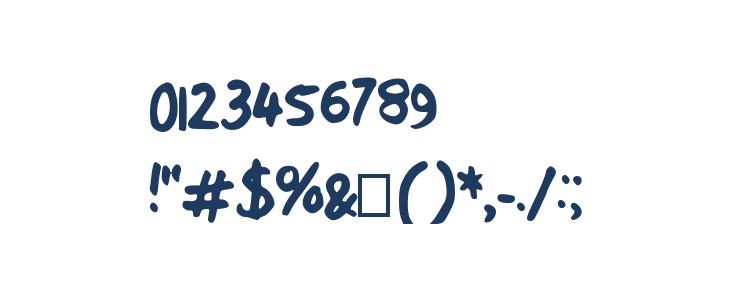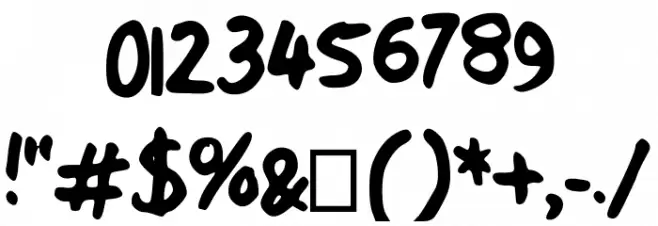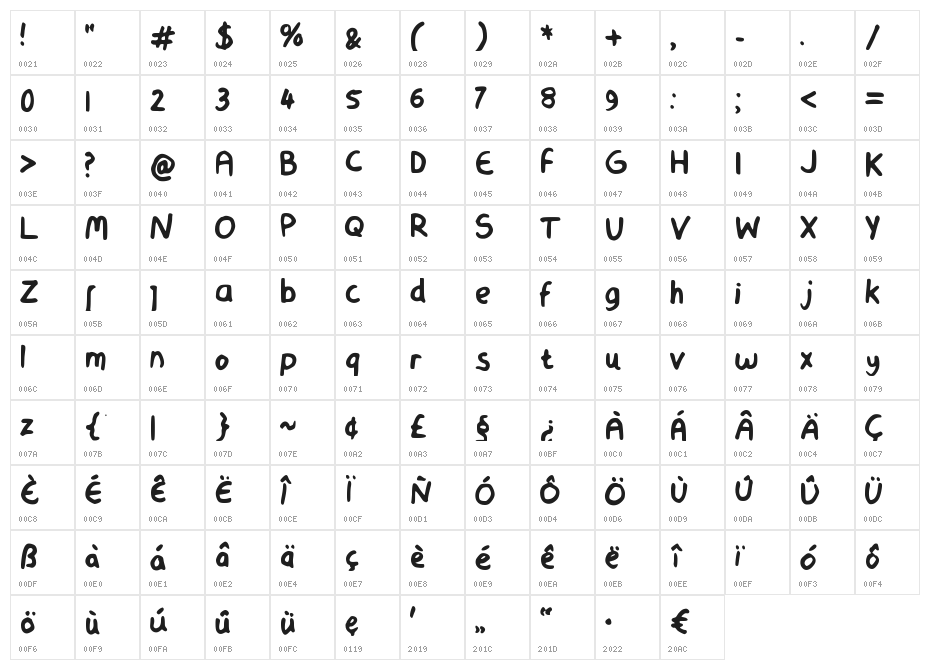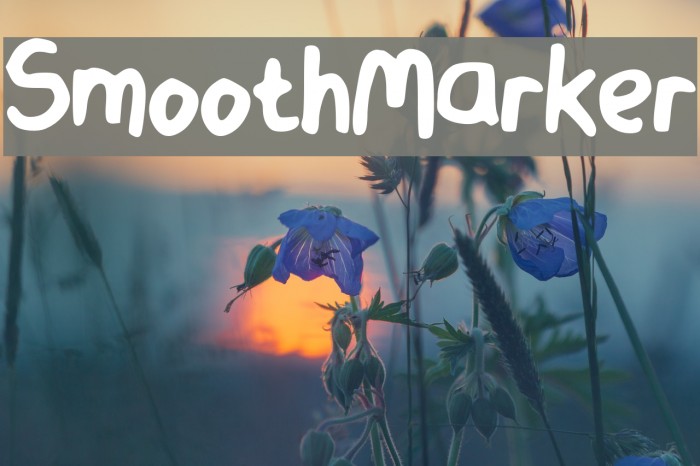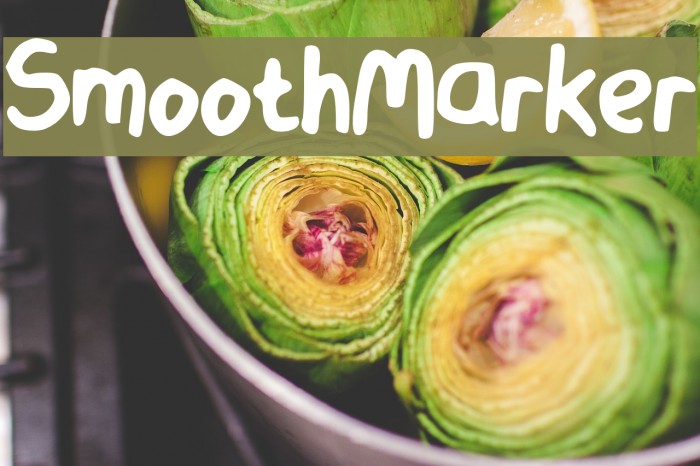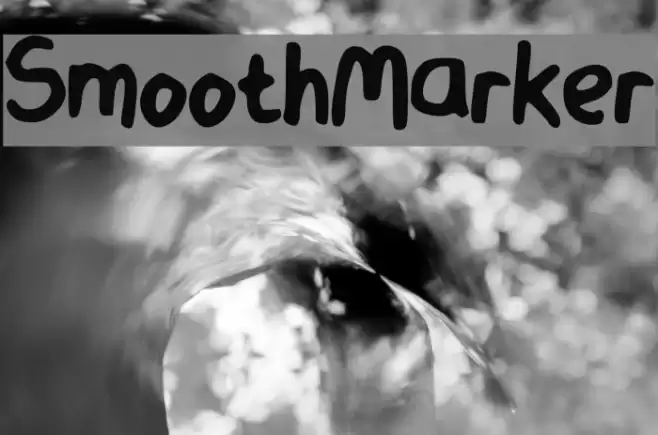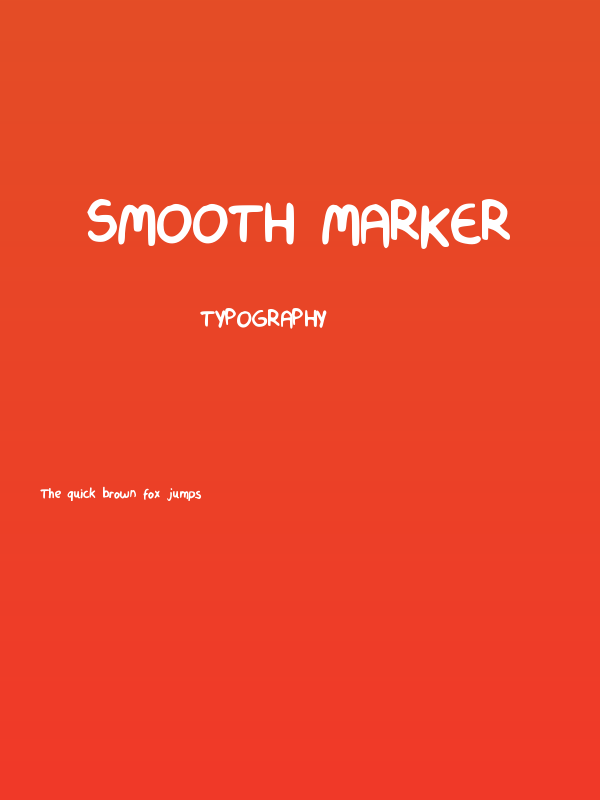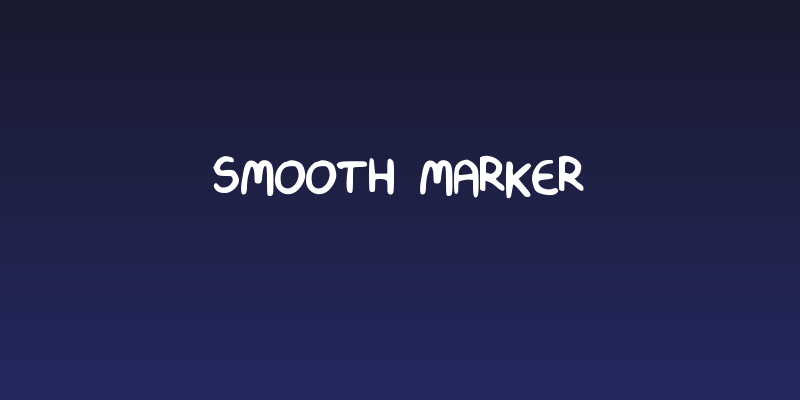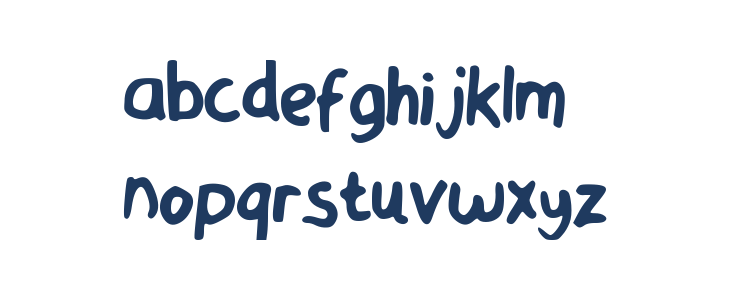
Smooth Marker Font
Smooth Marker Description
This font exhibits a playful and casual handwritten style, reminiscent of a smooth marker or brush pen. The characters are rounded and slightly irregular, giving them a friendly and approachable appearance. The uppercase and lowercase letters maintain a consistent flow, with a slight slant that adds to the informal feel. The numerals and special characters are designed to match the overall aesthetic, ensuring a cohesive look across all text. This font is perfect for projects that require a personal touch, such as greeting cards, invitations, or informal branding.
| Use Case | Headlines, Informal text, Branding |
| Proposed Projects | Ideal for greeting cards, invitations, children's books, and informal branding. |